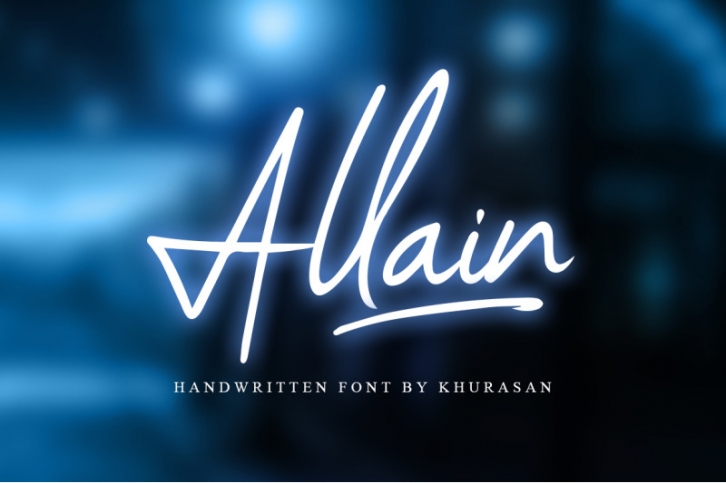
The Allain is a fresh script font, elegant and modern feel character set. The Allain font includes a full set capital and lowercase letters, as well as multi-lingual support, swashes, numerals, & punctuation.
• Uppercase & Lowercase
• Numeral & punctuation
• Swashes
• PUA Encoded Characters
• Multilingual support for; ä ö ü Ä Ö Ü ß ¿ ¡ & more